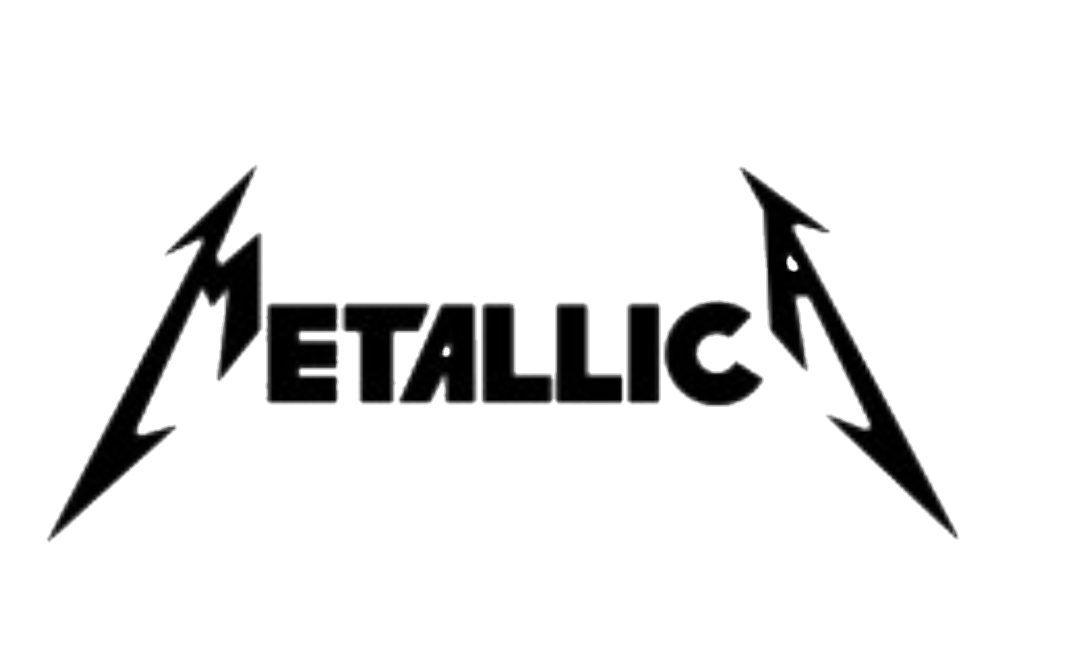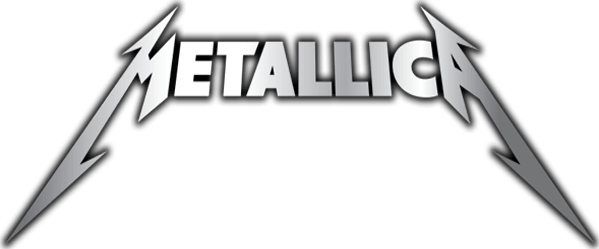
Metallica Font Generator App. Top metallica logo generator alternatives. Click to find the best 14 free fonts in the metallica style.
Metallica Has Become One Of The Most Powerful Heavy Metal Bands Of All Time And Is Credited As One Of The “Big Four” Of Thrash Metal, Together With Slayer, Anthrax, And Megadeth.
Heavy Metal Fonts Are Good For Rock Music Posters.
It Began When Lars Ulrich And James Hetfield Got Together.